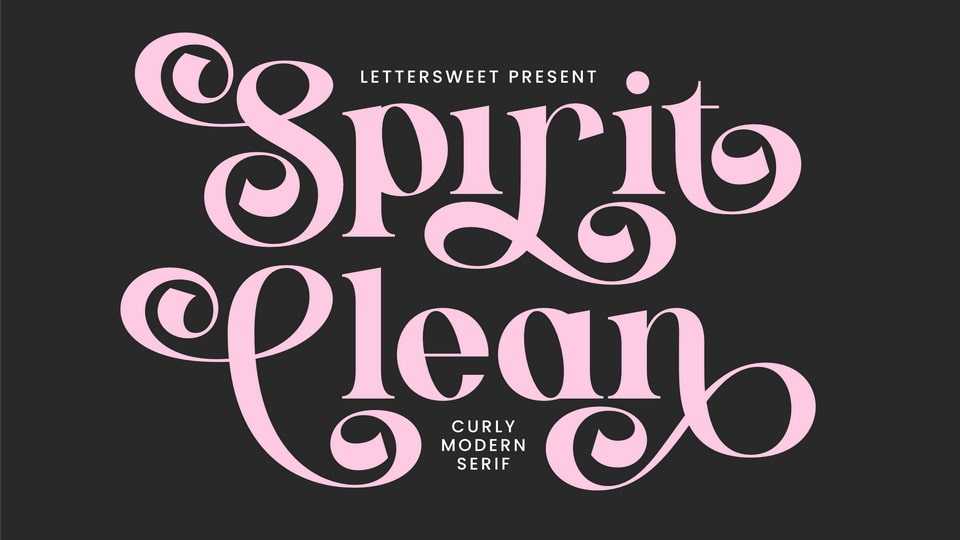
Download Spirit Clean font, a curly modern serif typeface that brings bold elegance and playful charm into perfect harmony with its eye-catching swirls, confident curves.